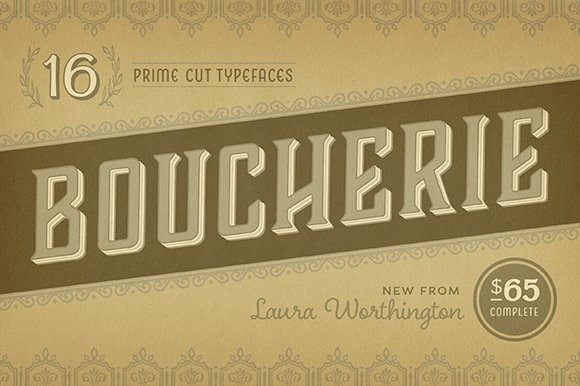
Introducing the Boucherie Collection Font, a display font family created by the talented Laura Worthington. In the world of design, finding fonts that not only work together but also capture the essence of a specific era can be a daunting task. Thankfully, Boucherie is here to solve that challenge.
Unlike tired cliché fonts, Boucherie offers a refreshing take on 19th-century French advertising typography. It presents a collection of original designs that are both fresh and familiar, allowing you to create typographic compositions that truly stand out.
With Boucherie, Laura Worthington provides four distinct display types, along with ornaments, catchwords, and frames. Each element beautifully complements the others while expanding the utility of the Charcuterie collection, on which they are based.
What sets Boucherie apart is its attention to detail. The low, slanted horizontals and generously proportioned bowls are recurring features in both Boucherie and Charcuterie, creating subtle visual cues that tie the two collections together.
While Charcuterie embraced rustic hand-drawn faces inspired by 19th-century French type and lettering, Boucherie takes a different approach. It offers smoothed, polished, and cleaned-up versions of those impressions, resulting in a more refined and sophisticated look.
Immerse yourself in the charm of 19th-century French advertising, while still maintaining a contemporary edge. Boucherie allows you to effortlessly create captivating designs that evoke nostalgia, yet remain modern and relevant.
Expand your creative horizons with Boucherie. Embrace the history and elegance of French typography, and let your imagination run wild. Stand out from the crowd with fonts that not only speak to your audience but also make a lasting impression.